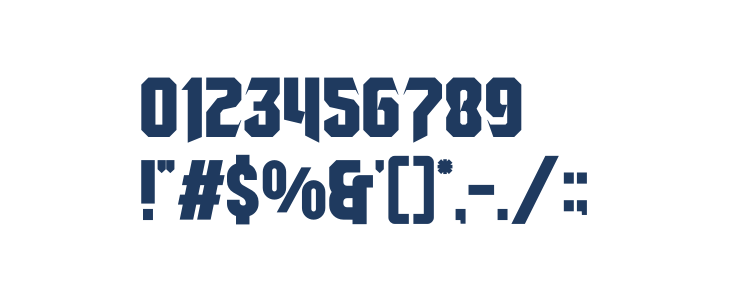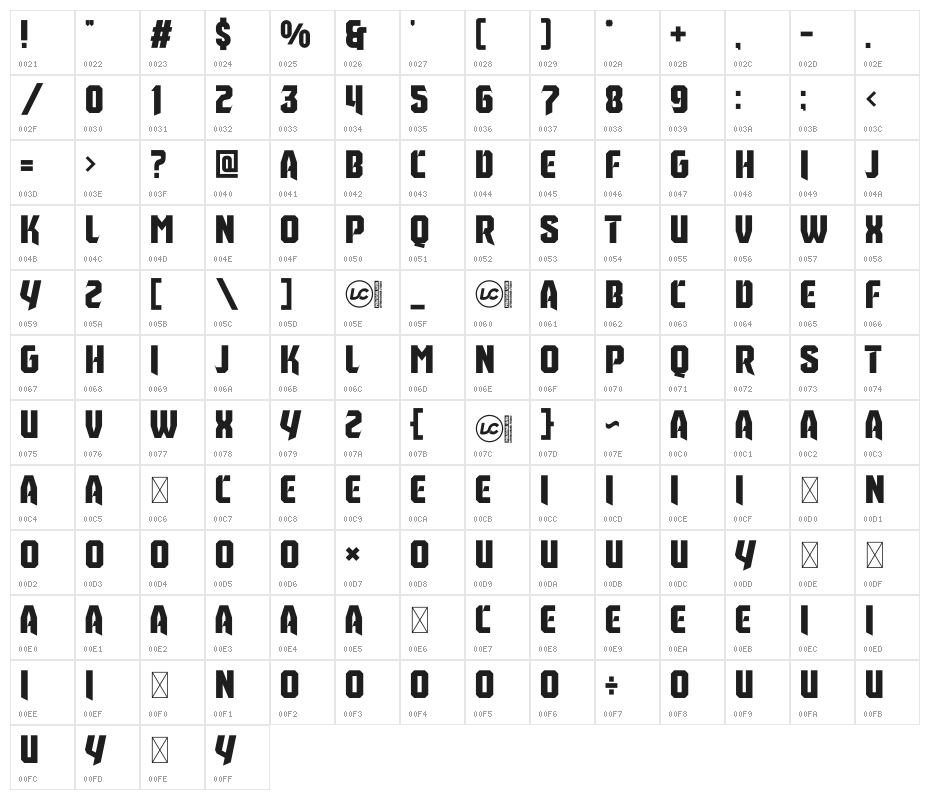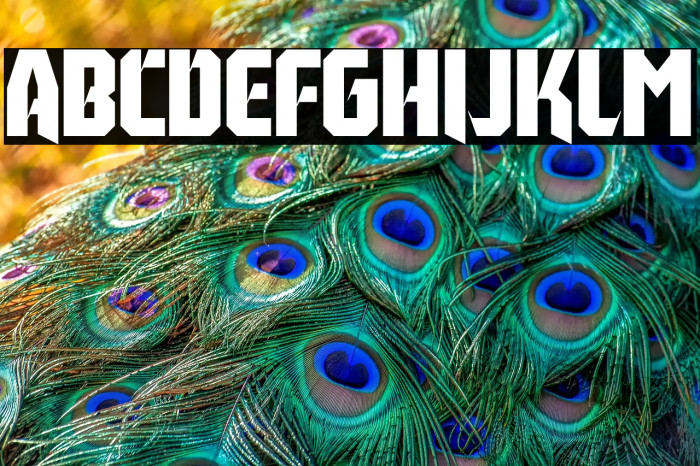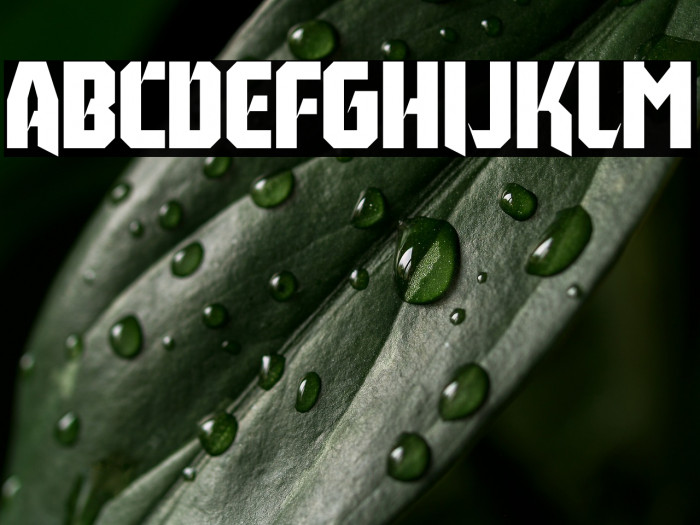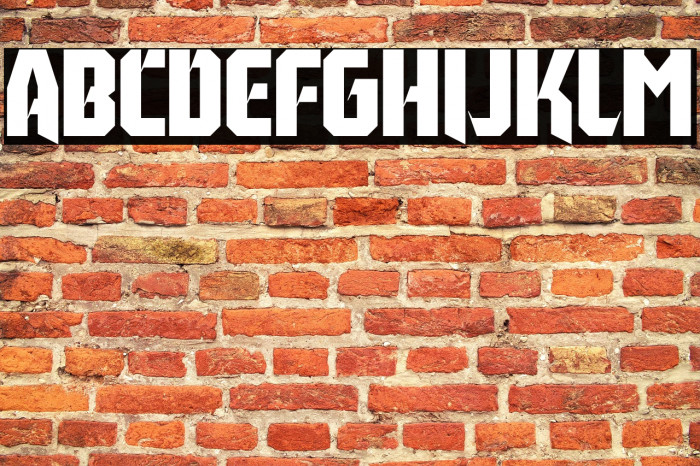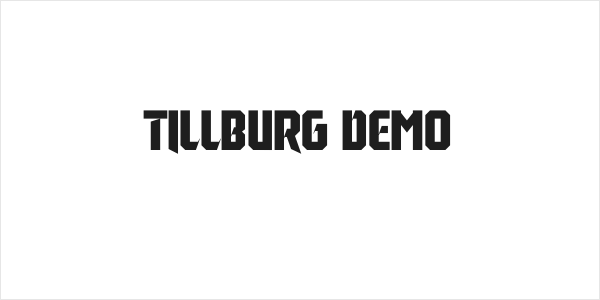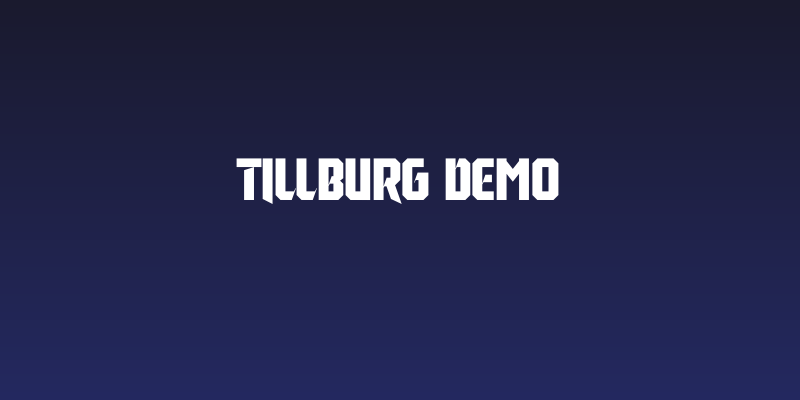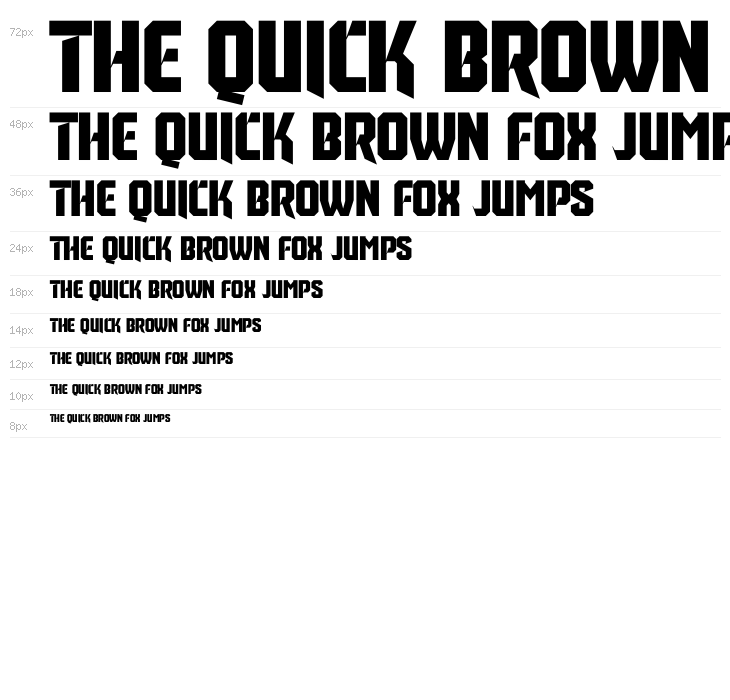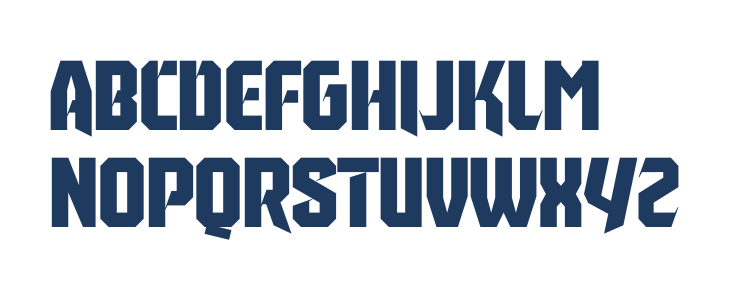
Tillburg DEMO Font
Tillburg DEMO Description
This font features a bold, geometric design with sharp angles and a strong presence. The characters are constructed with thick strokes and a blocky appearance, giving it a commanding and impactful look. The uppercase and lowercase letters maintain a consistent style, with angular cuts and a modern aesthetic. The numerals and special characters follow the same design principles, ensuring uniformity across all glyphs. This font is ideal for projects that require a bold statement and a contemporary feel.
| Proposed Projects | Ideal for posters, logos, branding, and headlines that require a strong visual impact. |